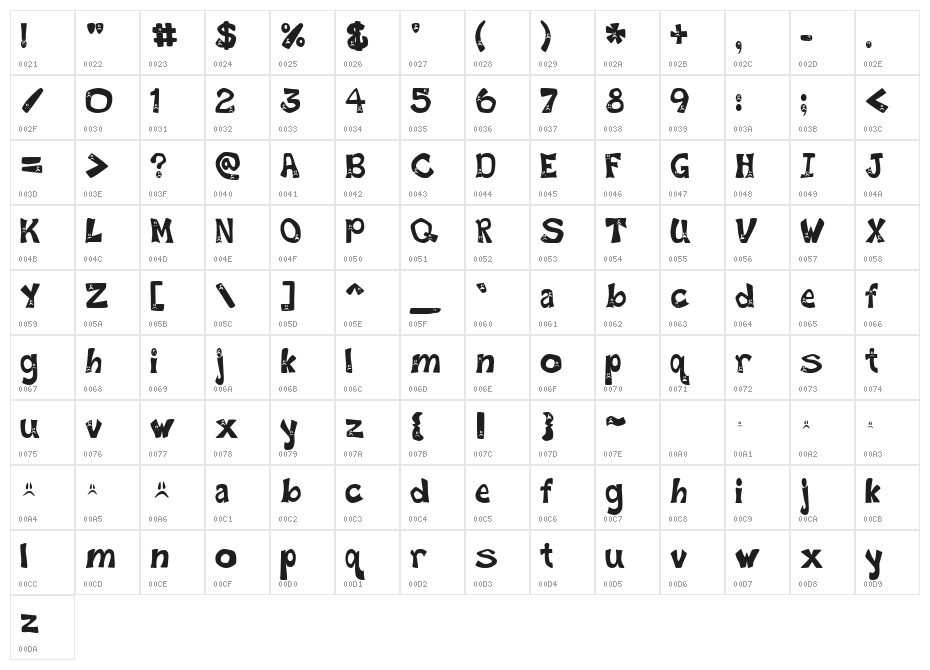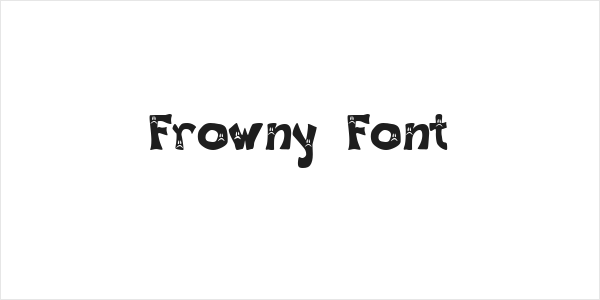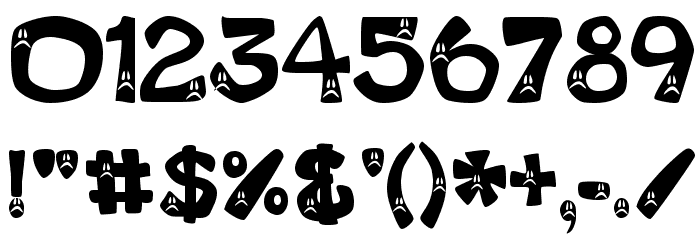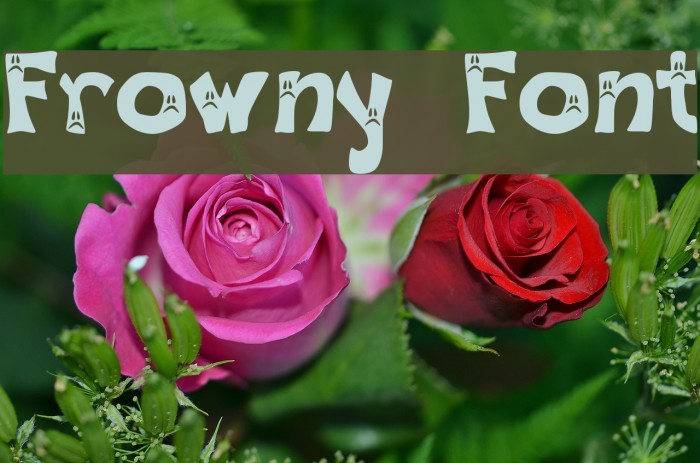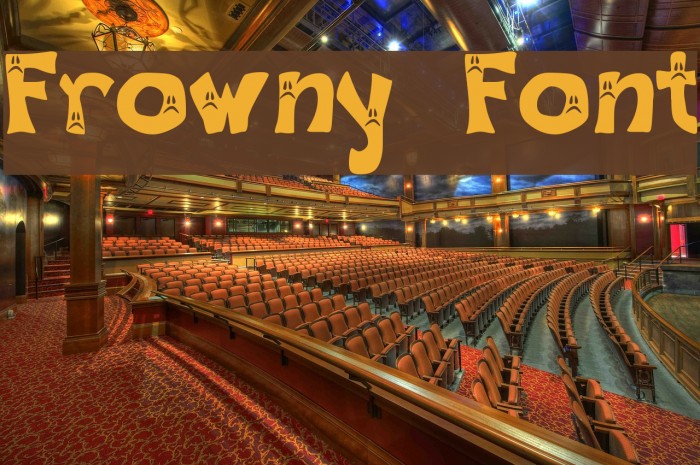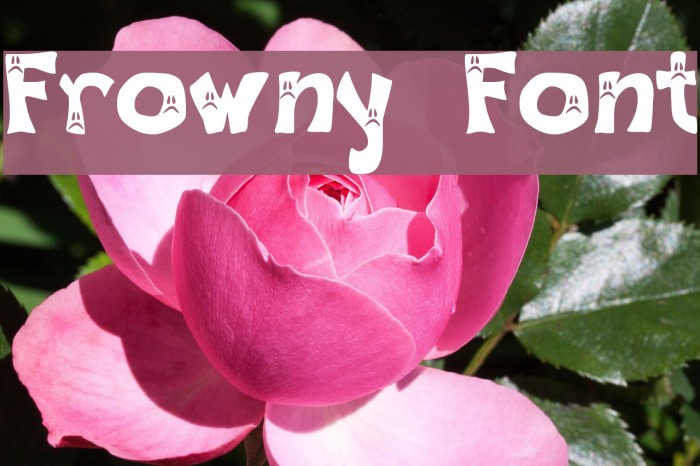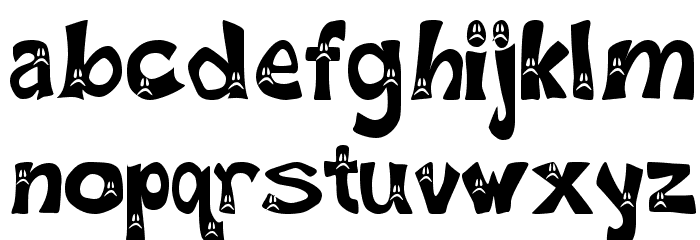
Frowny Font Font
Frowny Font Description
This playful and whimsical font features characters with expressive, frowning faces integrated into each letter and symbol. The bold, cartoonish style is characterized by thick strokes and exaggerated shapes, giving it a unique and humorous appearance. The letters are slightly irregular, adding to the quirky and fun aesthetic. This font is designed to capture attention and evoke a sense of amusement, making it ideal for creative and lighthearted projects.
| Overall Style | Playful, Humorous |
| Proposed Projects | Ideal for children's books, comic strips, playful branding, greeting cards, and party invitations. |